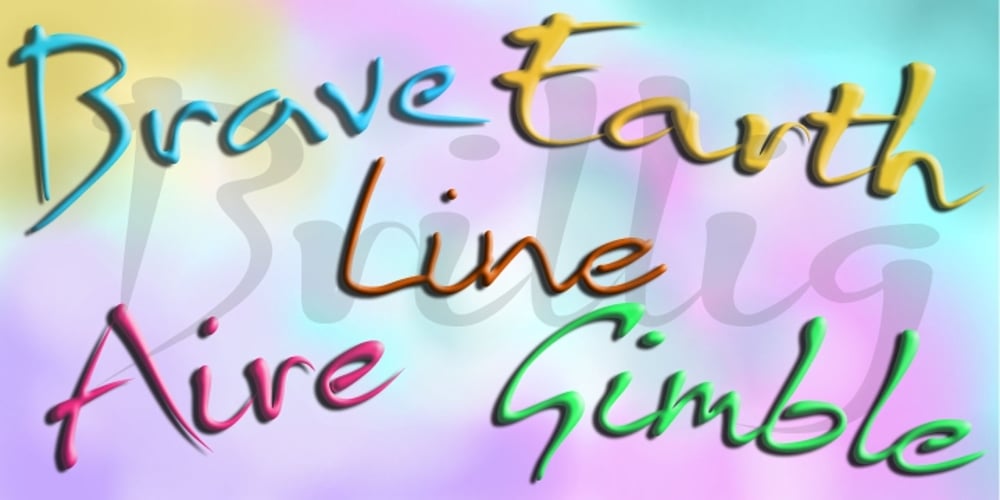
Brillig Font Family was designed by Anton Scholtz and published by Scholtz Fonts. Brillig contains 5 styles and family package options. Brillig is a loose and informal handwriting font. It comes in four flavors, each of which has a very different feel. Brillig Gimble: more formal in that the characters are interconnected as in cursive script. To further enhance this effect, the characters have been created with a slightly “blobby” pen which provides a suggestion of precision. Brillig Earth: is bold and strong. It is more “down-to-earth” than the other styles, however, the boldness is tempered with quite wispy ends (terminuses) to the characters. It conveys a suggestion of speed and strength. Brillig Aire: is the most delicate and ethereal of the styles. Think of fairies, dandelions and dragonflies and you have an idea of what Brillig Aire conveys. Not only are the characters very light in weight, but they terminate in a wispy, delicate end. In spite of all this, Brillig Aire is very readable and can be used in a variety of contexts. Brillig Brave: is quite like Gimble in its feel with one important difference — the characters are not connected as in cursive script. Each character stands alone. Brillig Line: is a clean, lightweight style using a mono width line for an informal, handwritten feel. There is a collection of the above four styles that is attractively priced and gives you the ability to use these four fonts in a variety of ways within the same document. The font is particularly useable for the promotion of products aimed at designers of: wedding invitations, party invitations, young clothing ranges, magazines, cosmetic packaging. It has been carefully letterspaced and kerned. All upper and lower case characters, punctuation, numerals and accented characters are present.